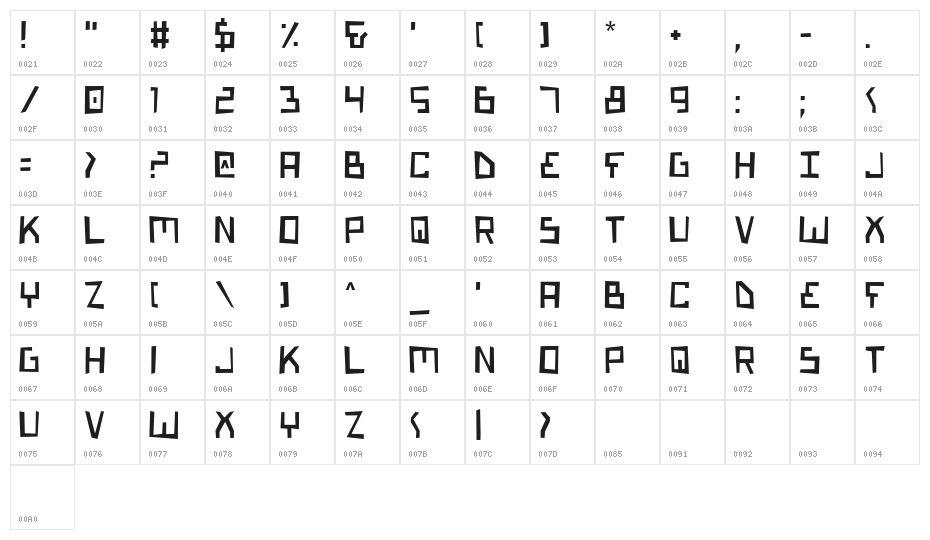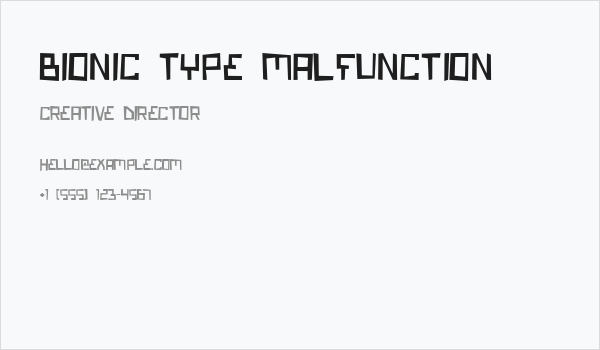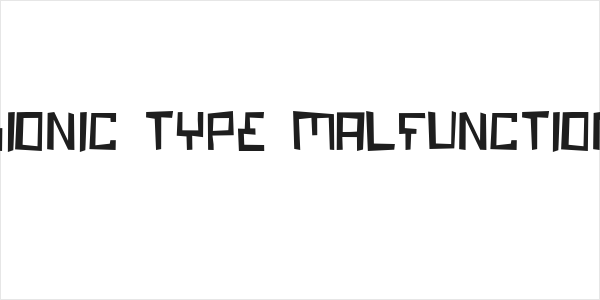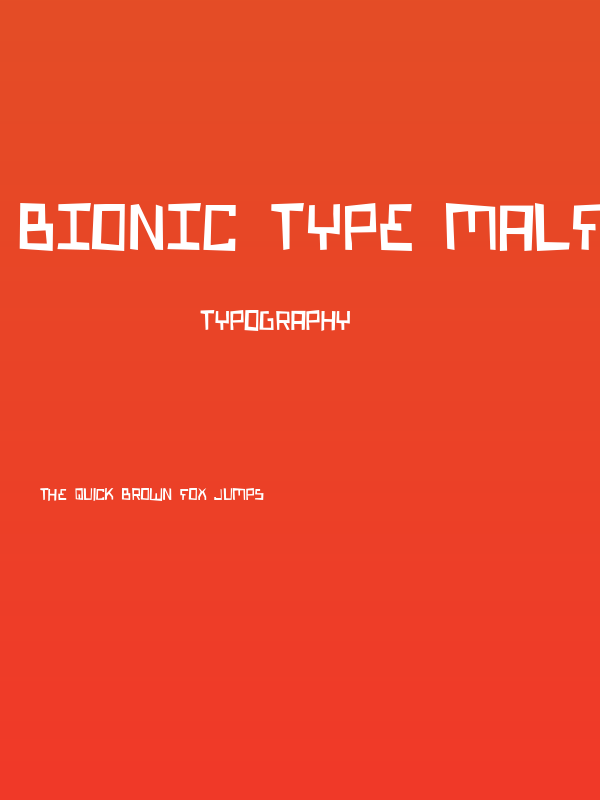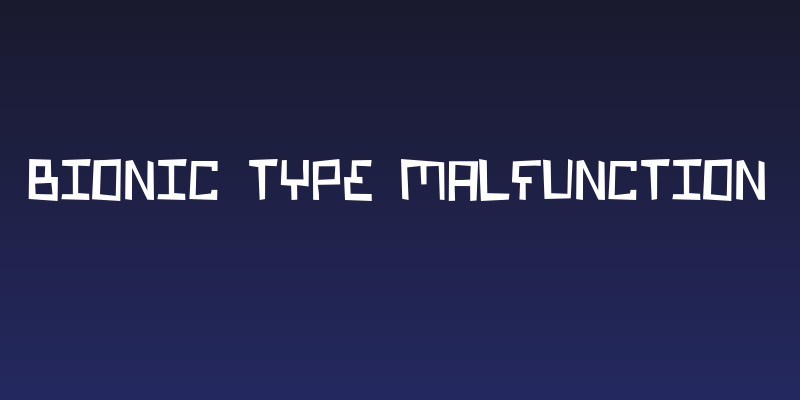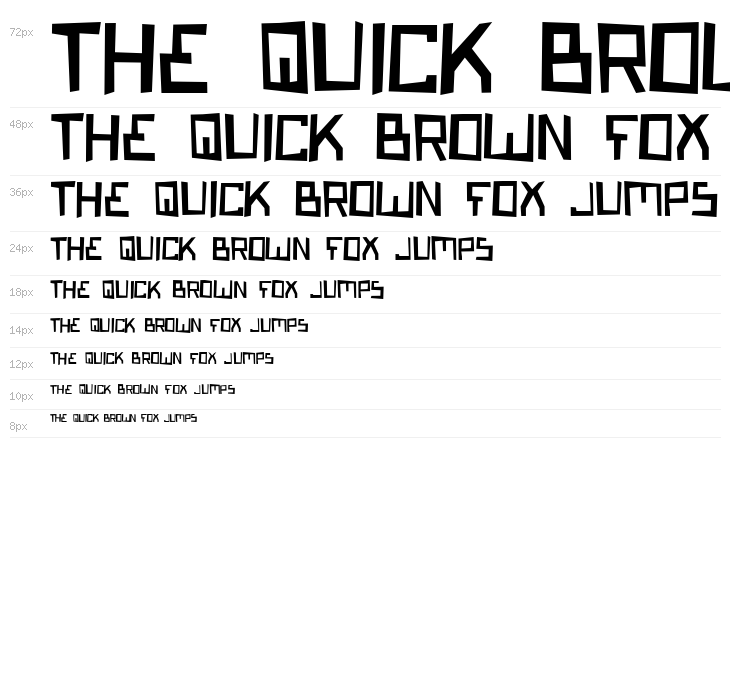
Bionic Type Malfunction Font
| Proiecte propuse | Ideal for technology branding, sci-fi themed designs, video game interfaces, and digital art projects. |